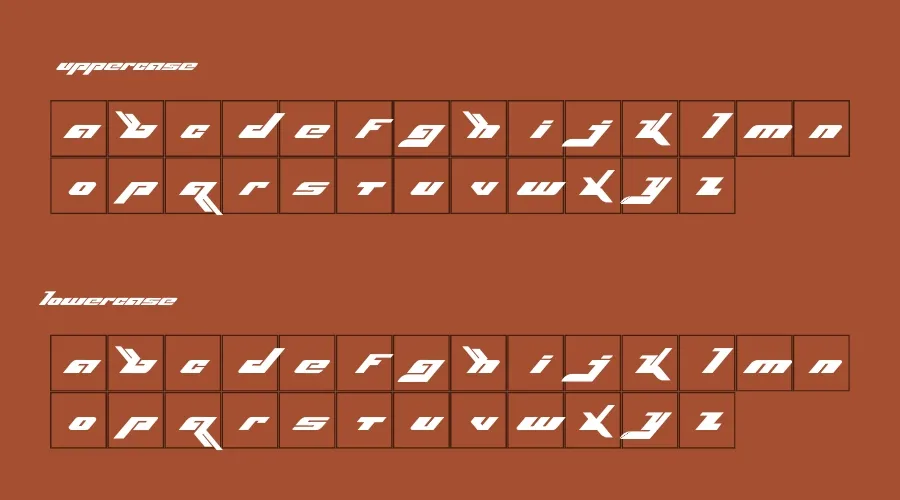
Bjork Font
About Bjork Font
The Bjork Font was developed by a well-known typographic designer known as the name of Japanese graffiti. This style is under the category of the logo font family and contains multiple different types of weights and styles.